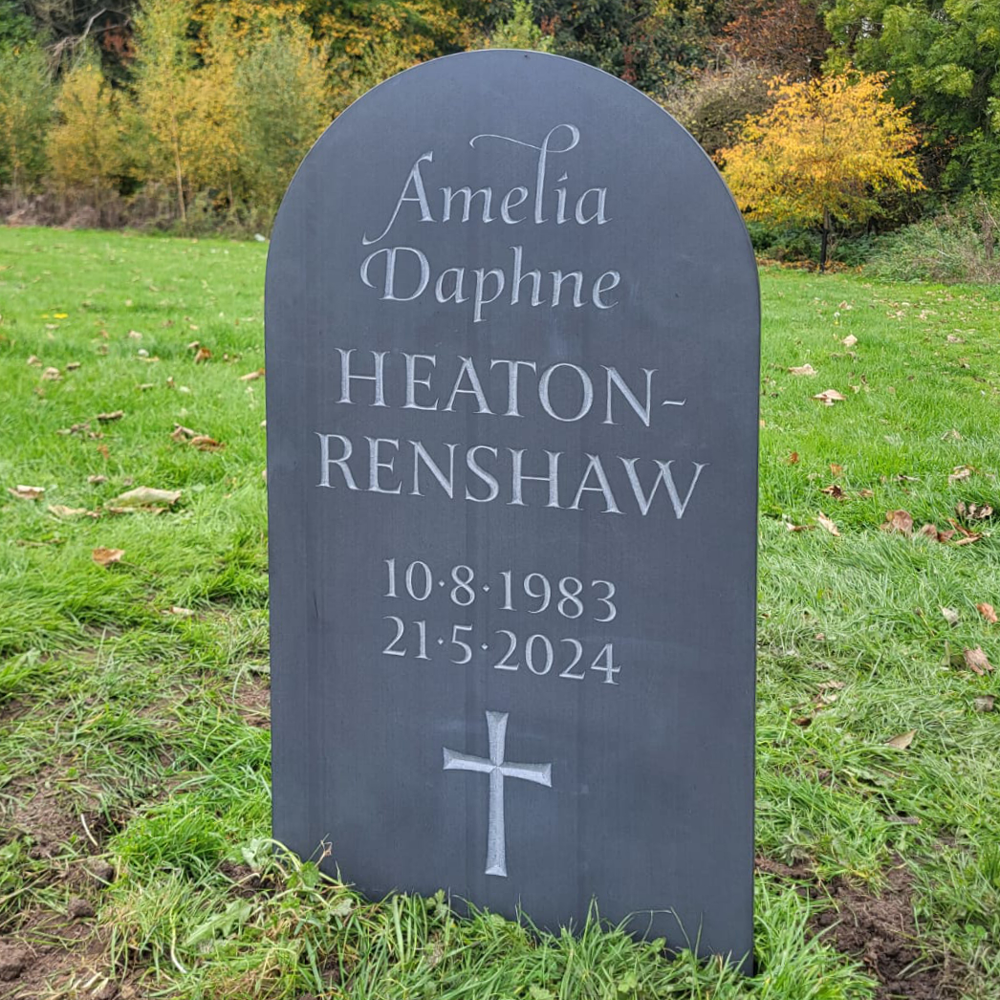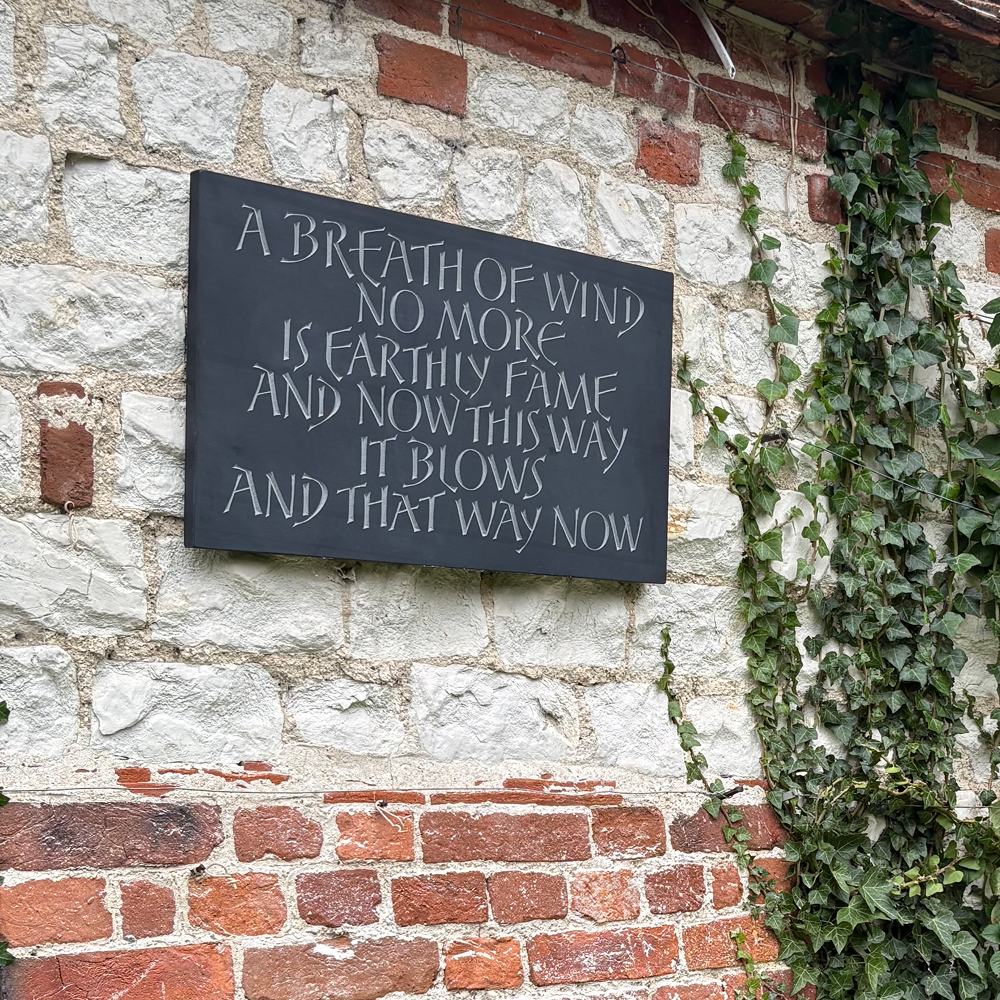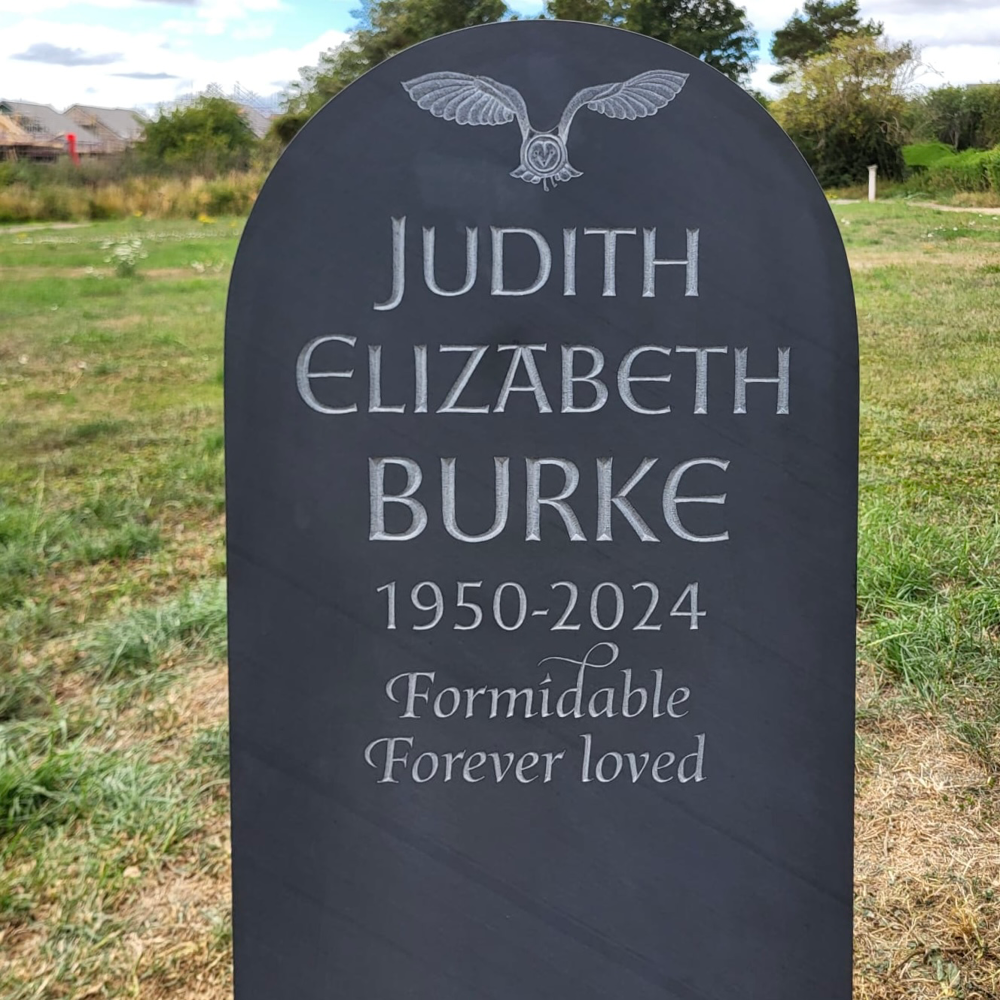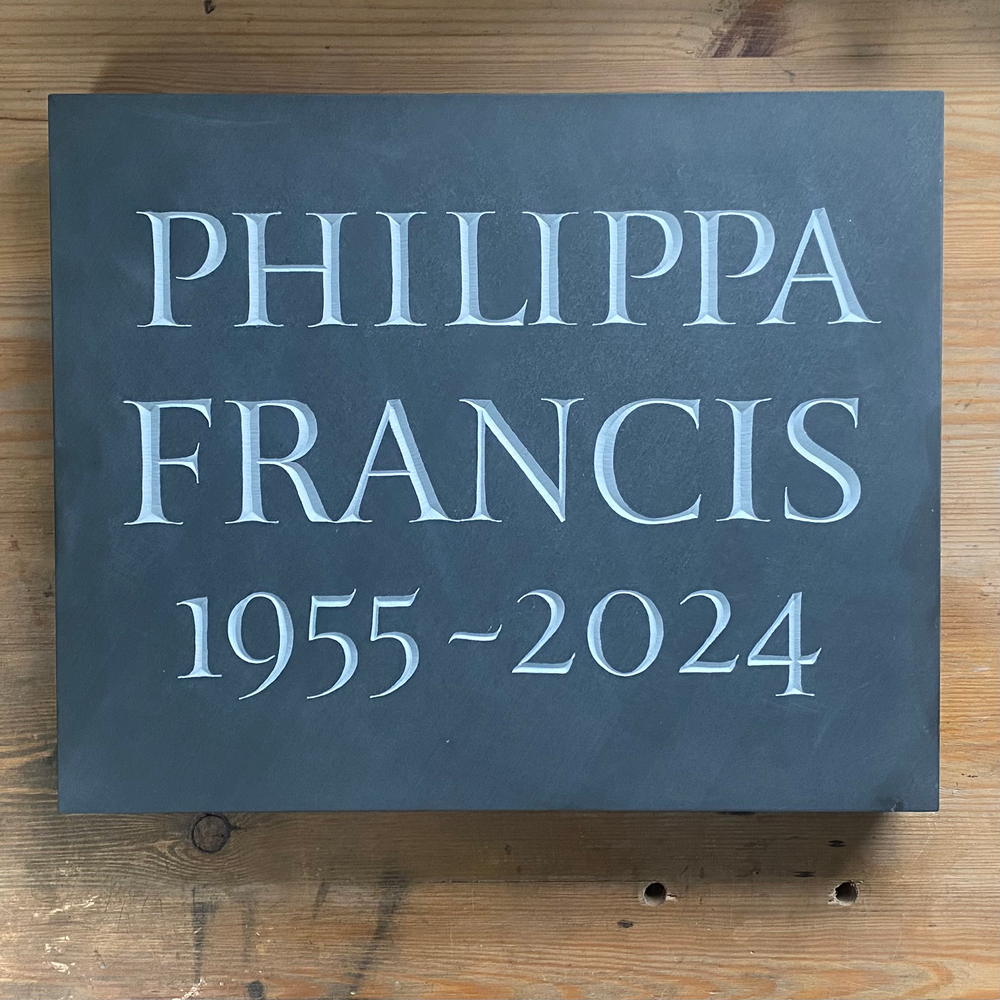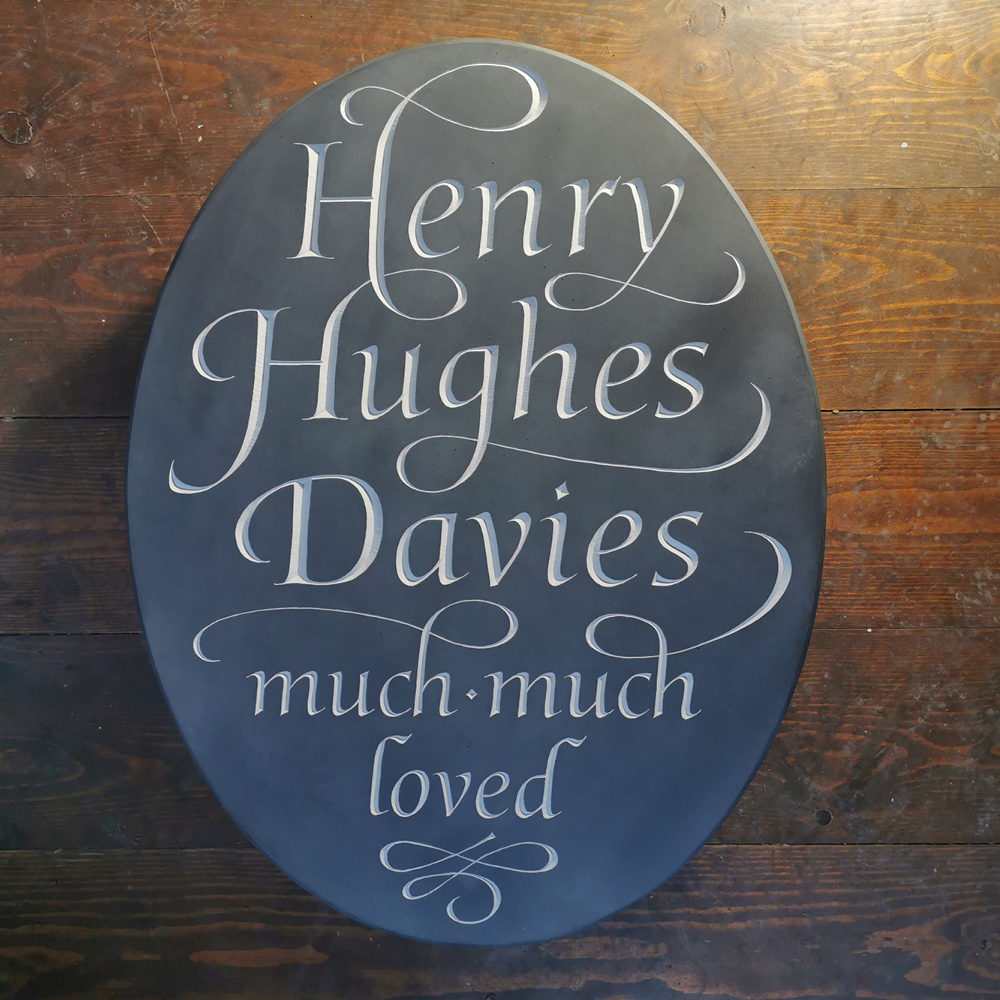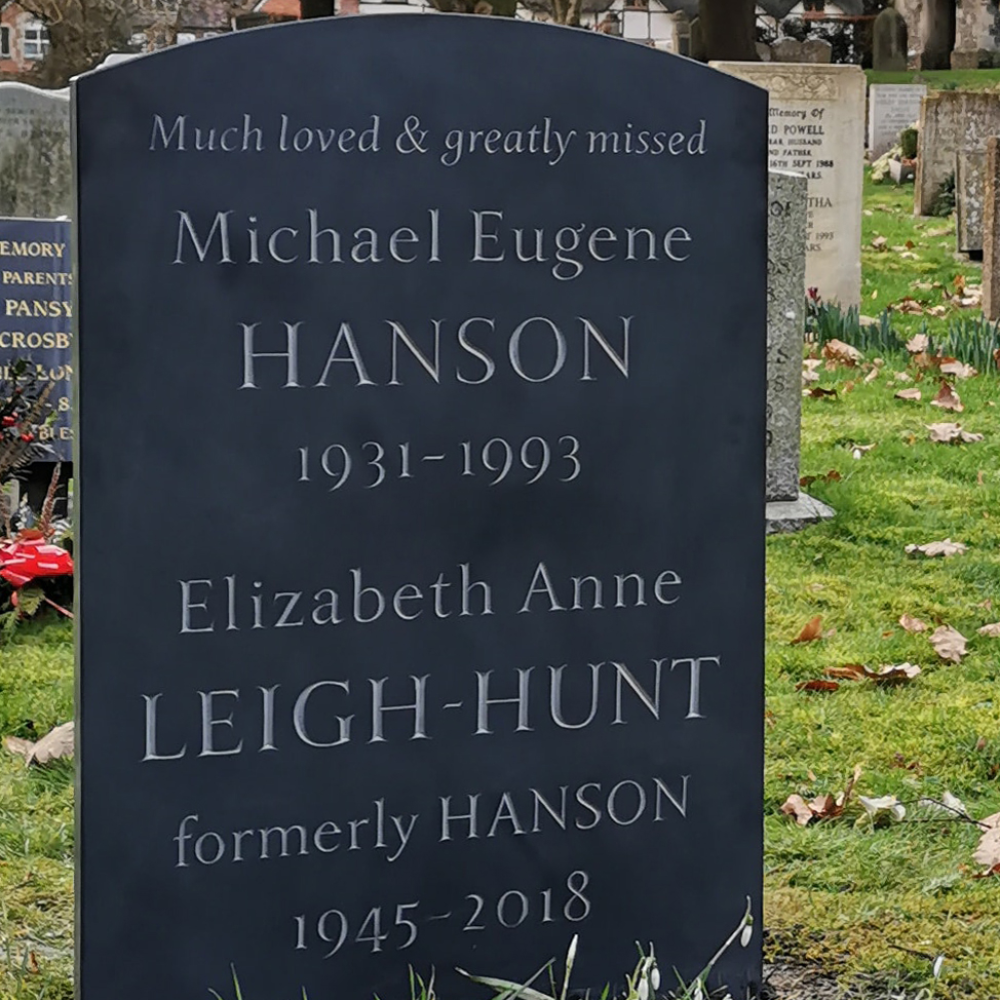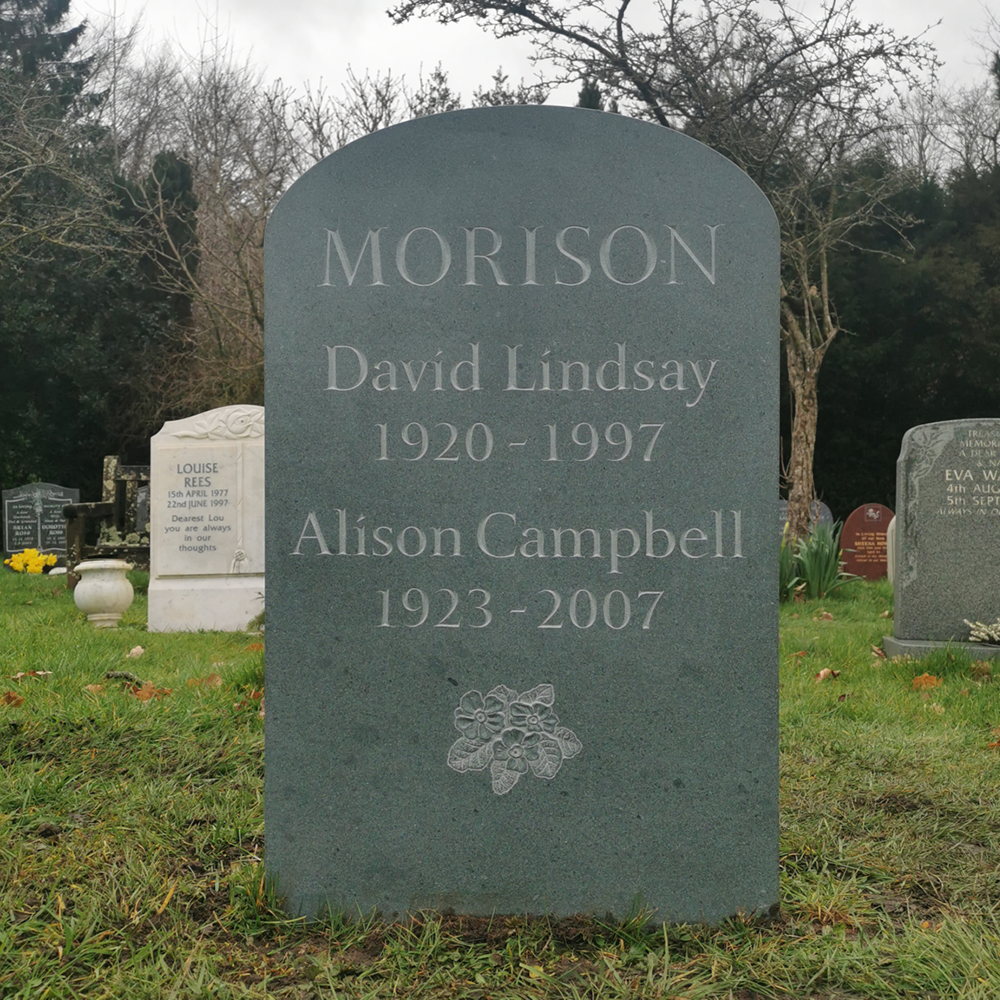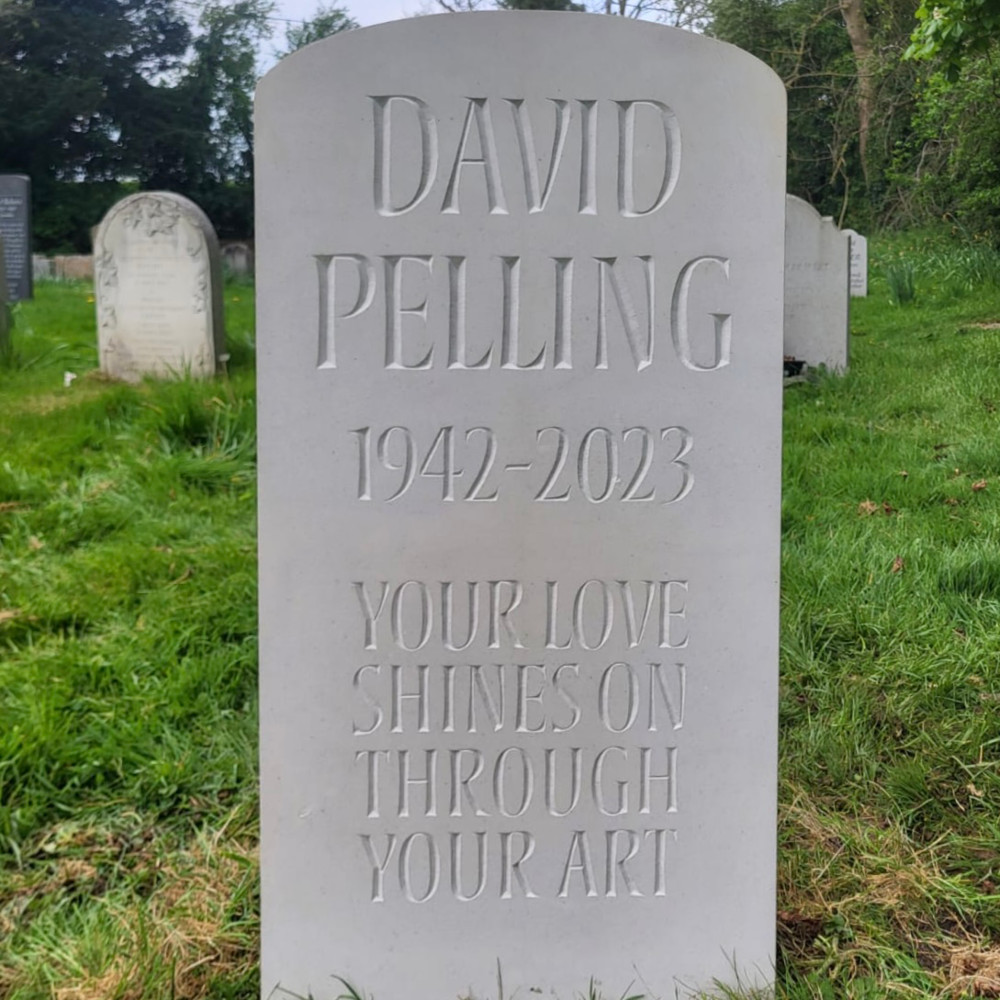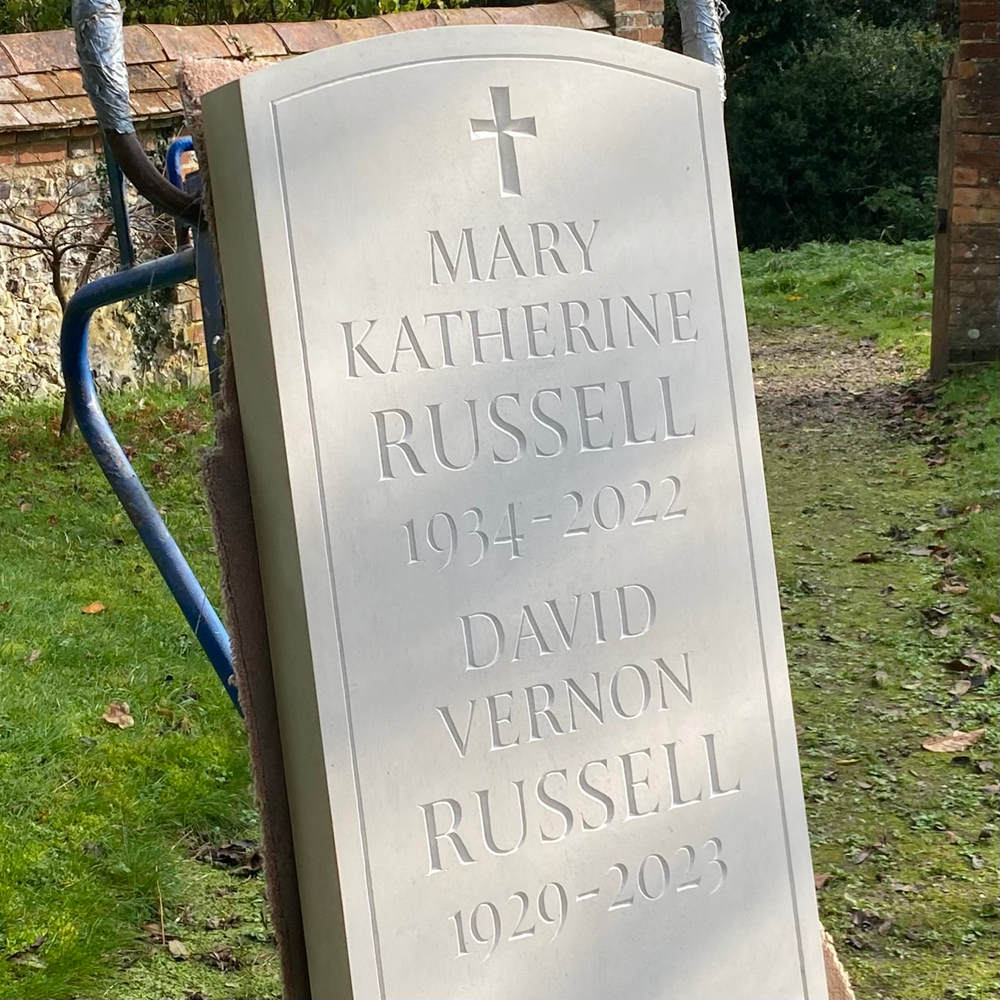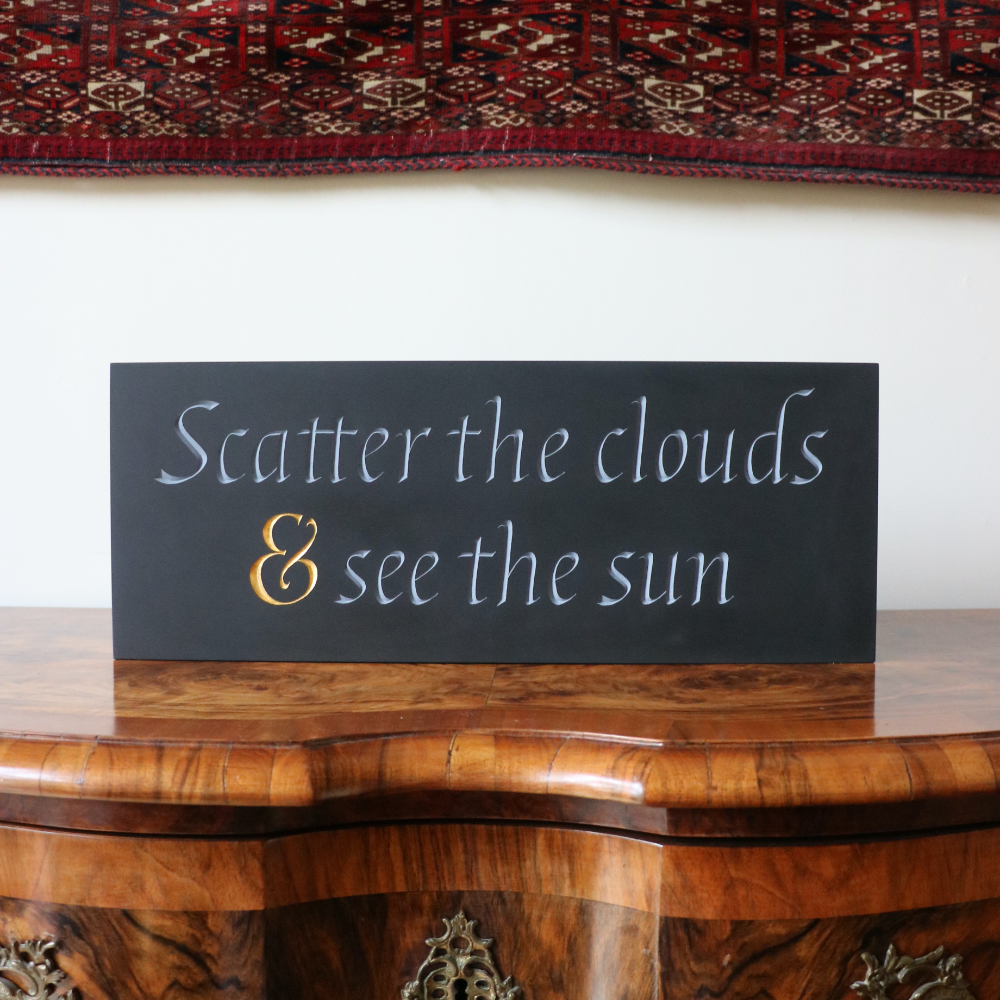
LETTERING ARTIST IN STONE & WOOD
“Lettering in stone allows me to make a deeply personal and long-lasting sculptural form that expresses a tribute, evokes a memory or simply makes a statement.”
From her studio in the Pewsey Vale, Lisi creates a wide range of original and beautifully crafted representational sculptures in stone, slate or wood, contemporary and traditional, inspired by themes as diverse as poetry, history, philosophy, science and the landscape.
Each job is unique and it is important to her to evolve, design and carve lettering appropriate to the material, text, location of the setting of the piece and the sanctity of the terms of the commission.
“It is a true privilege to be able to work closely with and respond to clients and create something both personally meaningful and beautiful.”